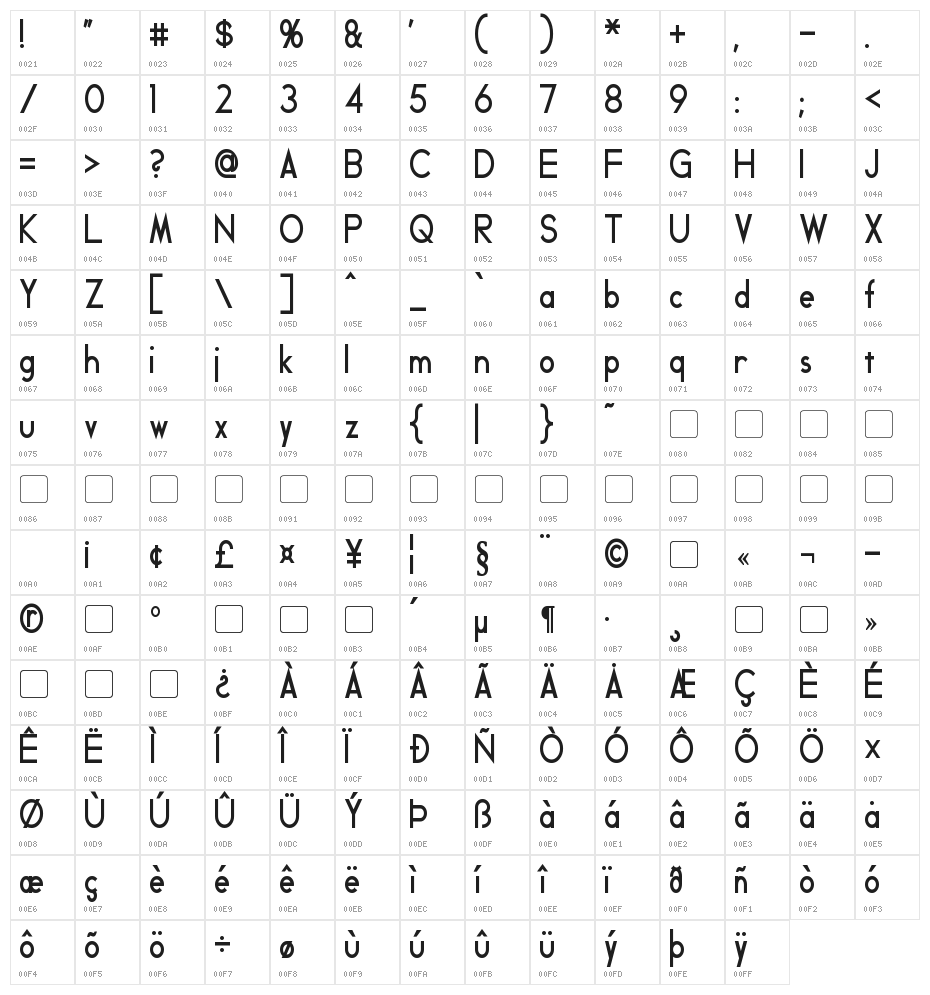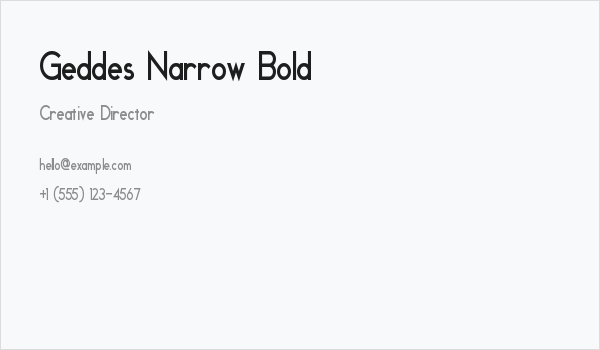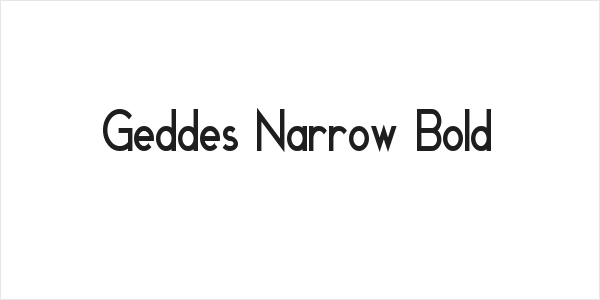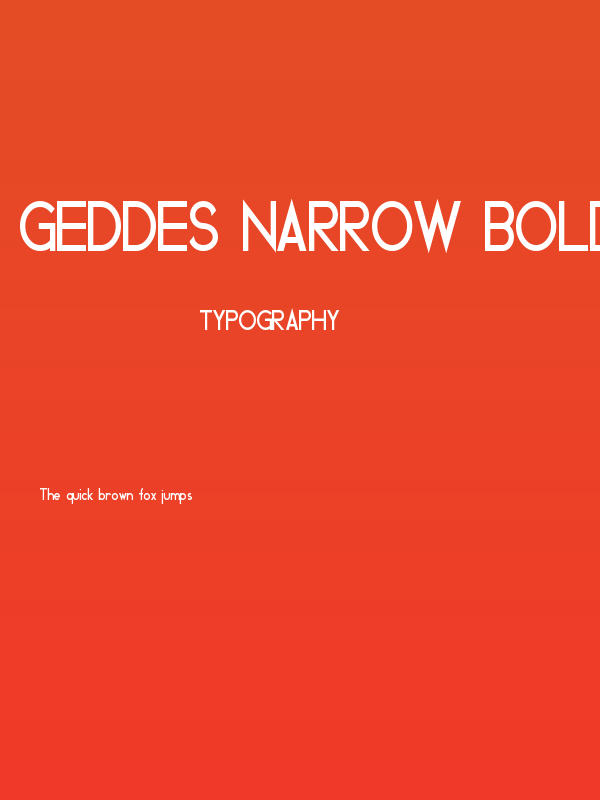
Geddes Narrow Bold Font
Geddes Narrow Bold Description
This font features a bold and narrow design, characterized by its clean and modern sans-serif style. The letters are uniformly thick, with a consistent stroke width that gives it a strong and assertive appearance. The uppercase and lowercase letters are well-proportioned, maintaining a harmonious balance across the alphabet. The numerals are clear and easy to read, while the special characters are distinct and well-integrated into the overall design. This font's narrow width makes it ideal for space-saving applications without sacrificing readability.
Proposed ProjectsIdeal for branding, headlines, posters, and modern web design projects.